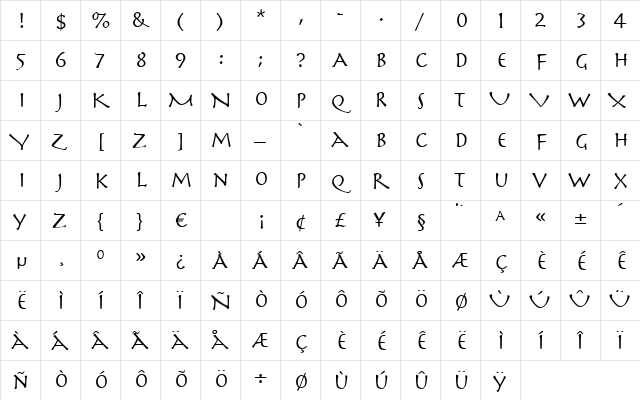
Sphinx Regular
Design Context for Sphinx Typeface
Sphinx is a composed and adaptable typeface that performs quietly and consistently across a wide range of design contexts.